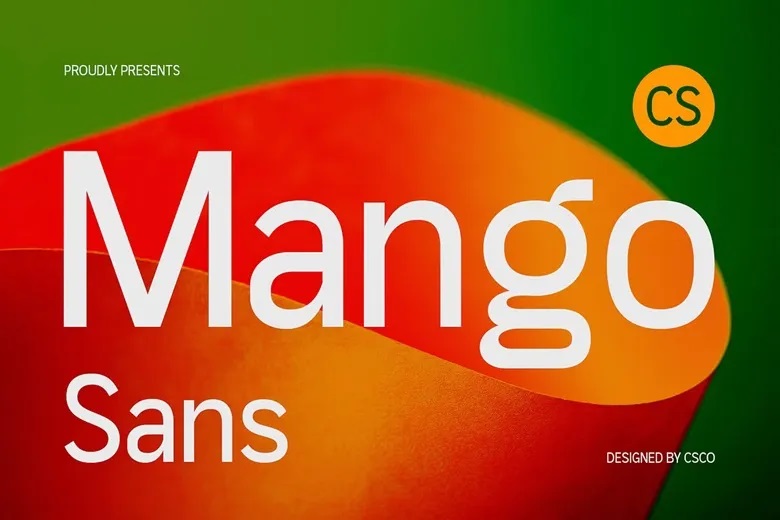
CS Mango Font
CS Mango is a new sans-serif typeface with elements from both grotesk and geometric style, free of ornaments, with clean and strong, and at the same time, an adjustable character. Functionally, it was intended for professional type and, at the same time, to provide expressive outline, which in its simplicity is distinctive, for creative use in various forms of design.
CS Mango has a balanced geometry of the lettering and rounded line contours which makes such creation adapt for both screen and offline media. Thanks to the thin strokes, the letters blend well with each other, while the generally geometric designs give Interface the clean and ‘classic’ touch for friendly user interfaces and formal designs.
CS Mango Sans Serif Font